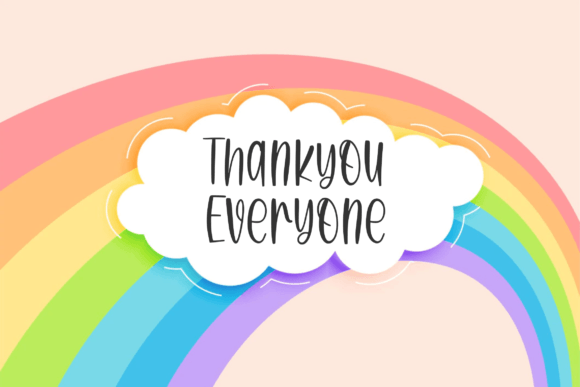
Unicorn Twister Font
Unicorn Twister is a worthy option for designers looking to add a touch of emotion and simplicity to their projects. From child-friendly designs to brochure selections, you’re going to find this pick easy to play with.